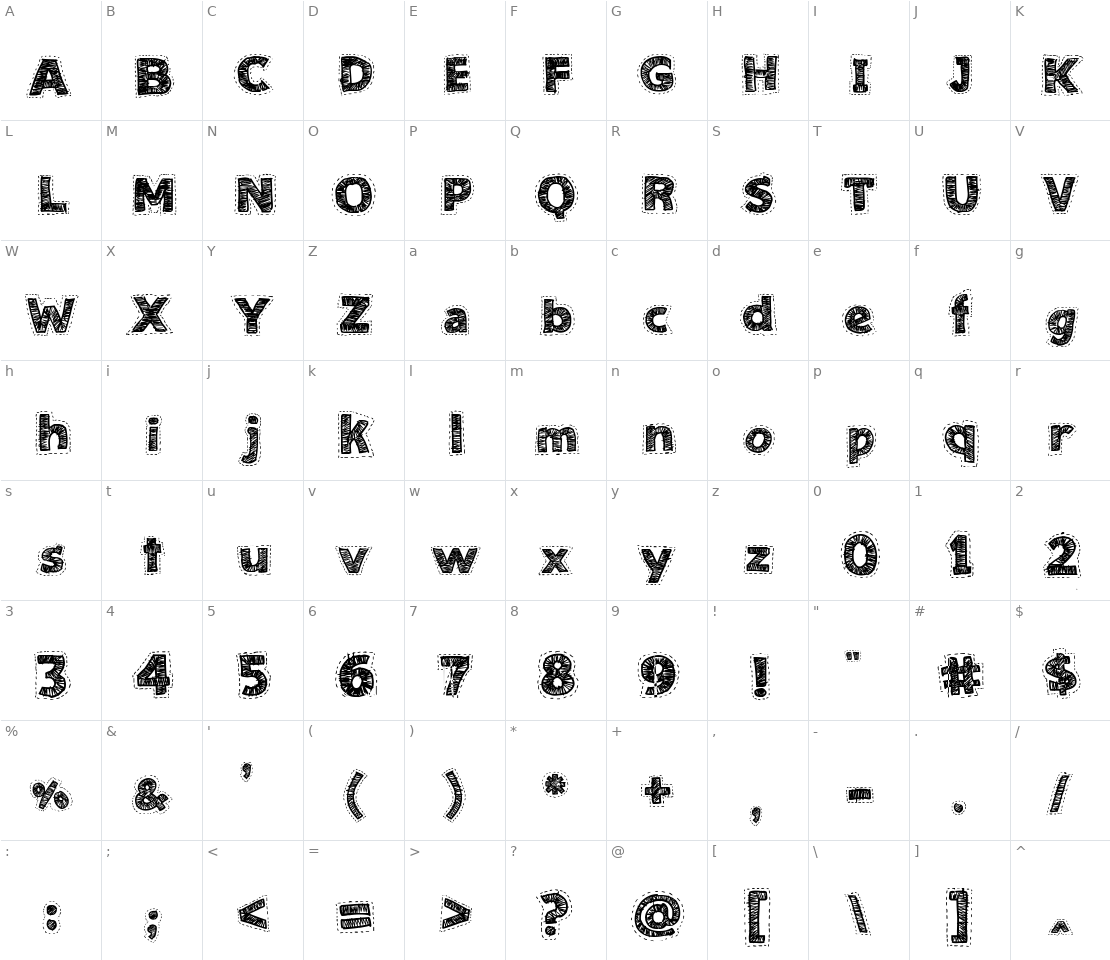
Needlework Good
Needlework Good from Galdino Tten simulates the look of cross-stitch embroidery, with each letterform built from small dashed strokes that mimic thread on fabric. The effect is charming and unmistakably handcrafted, giving it a warm, tactile quality that works well for craft branding, scrapbook layouts, and packaging with a homemade feel. Best kept to headlines and short text where the stitched detail stays readable and doesn't turn to noise.